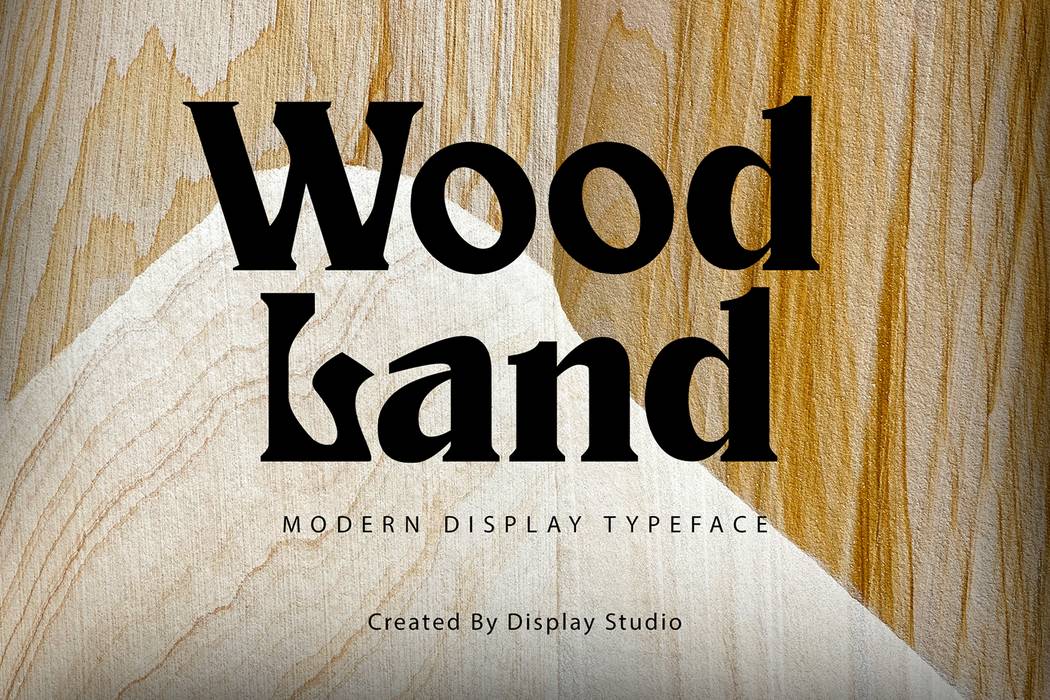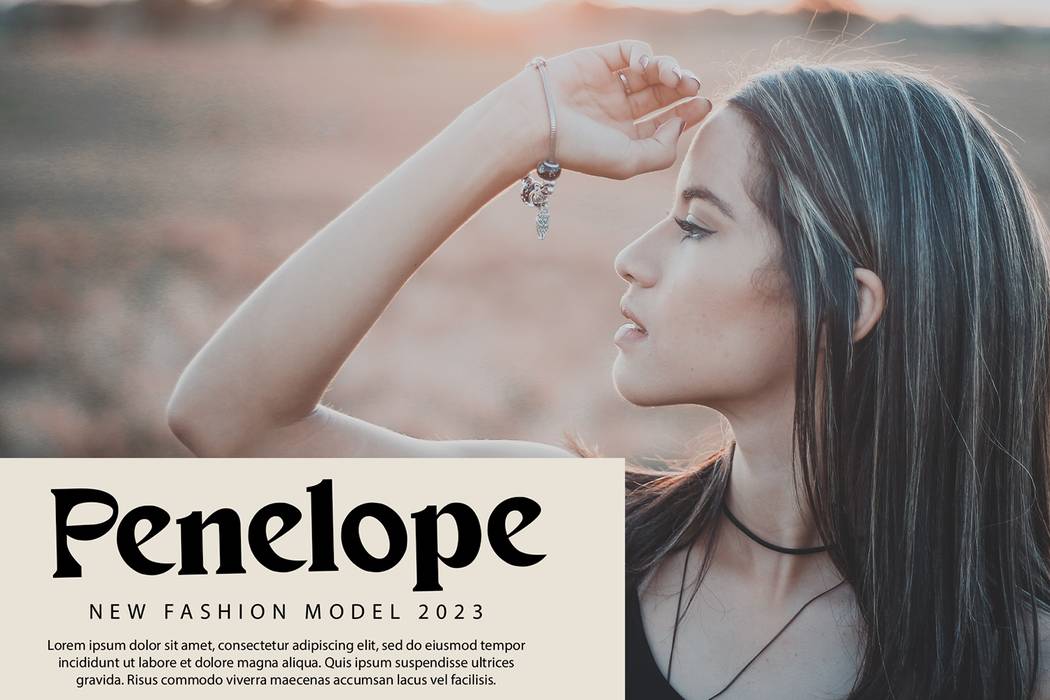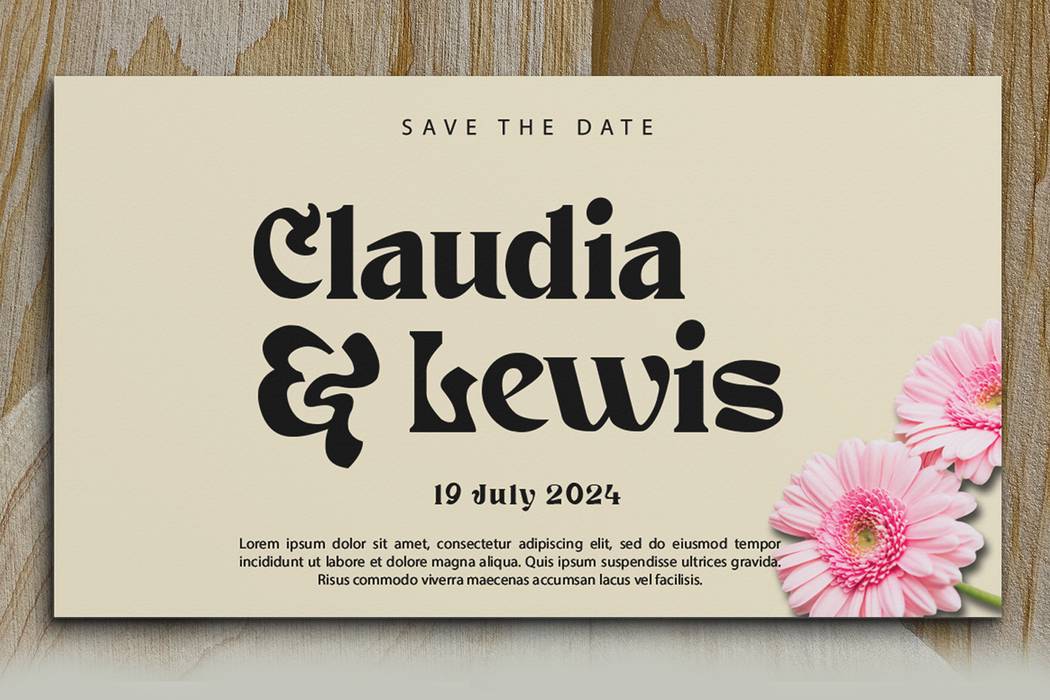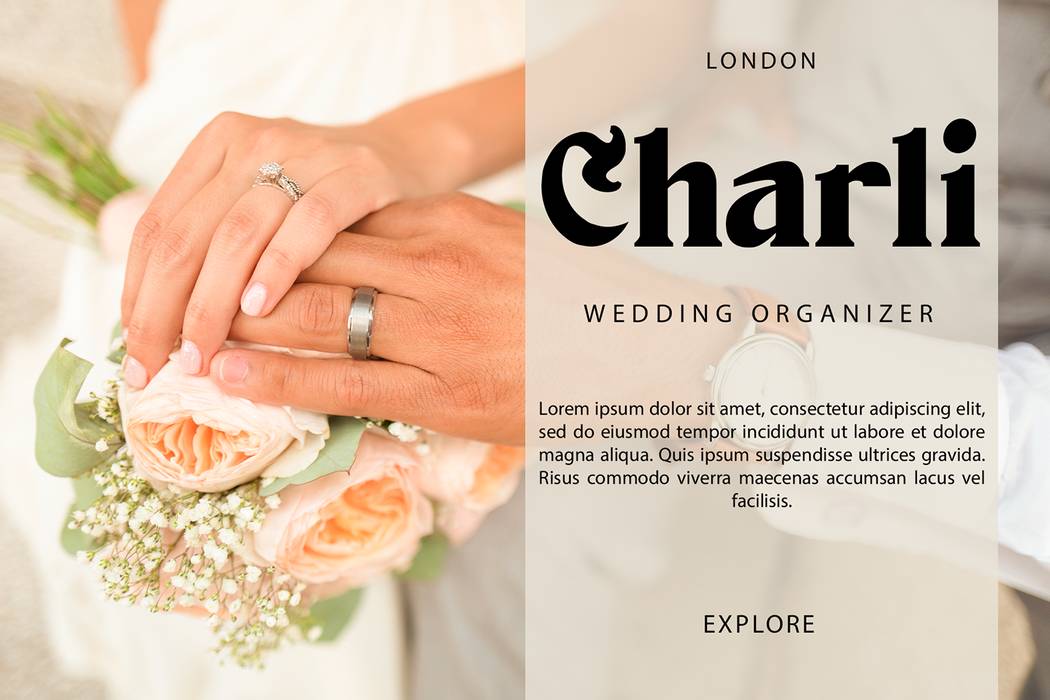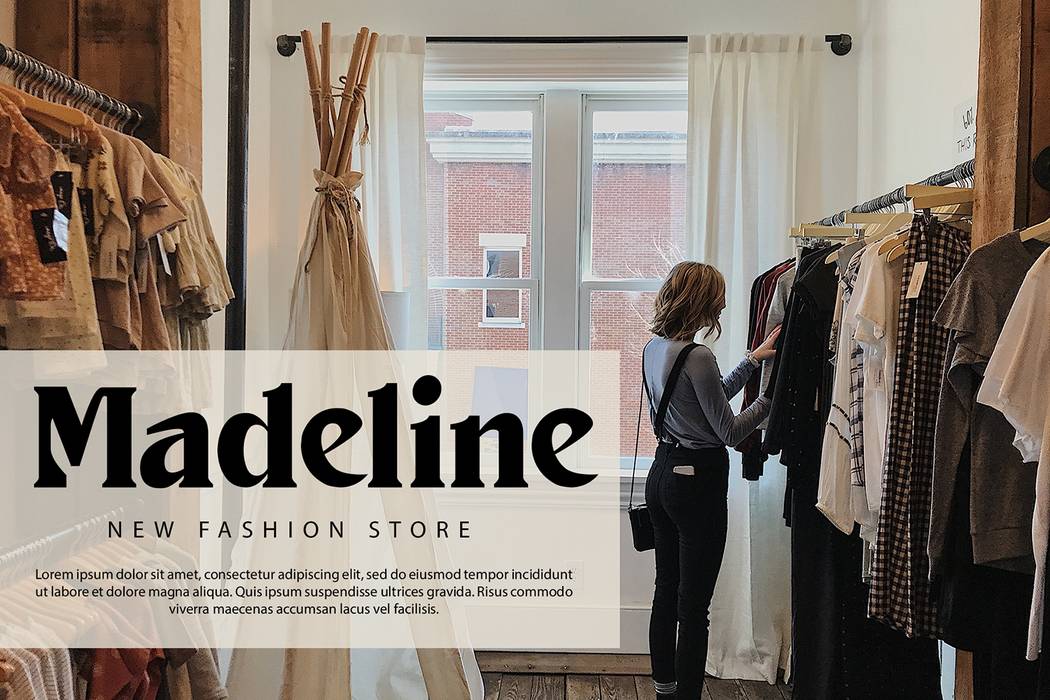
Wood Land is a bold serif font with a distinctive, ornamental style that combines high contrast strokes with unique, slightly Gothic-inspired letterforms. It features a strong presence with its thick serifs and decorative details, giving it a vintage and artistic personality ideal for creating memorable headlines, logos, or branding with a rustic yet elegant flair. This font works especially well in designs that seek a blend of classic sophistication and creative edge.
Wood Land Font